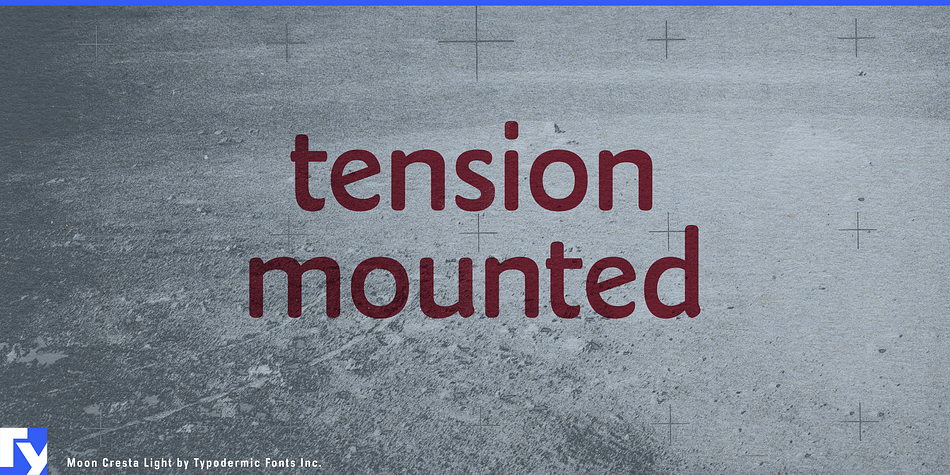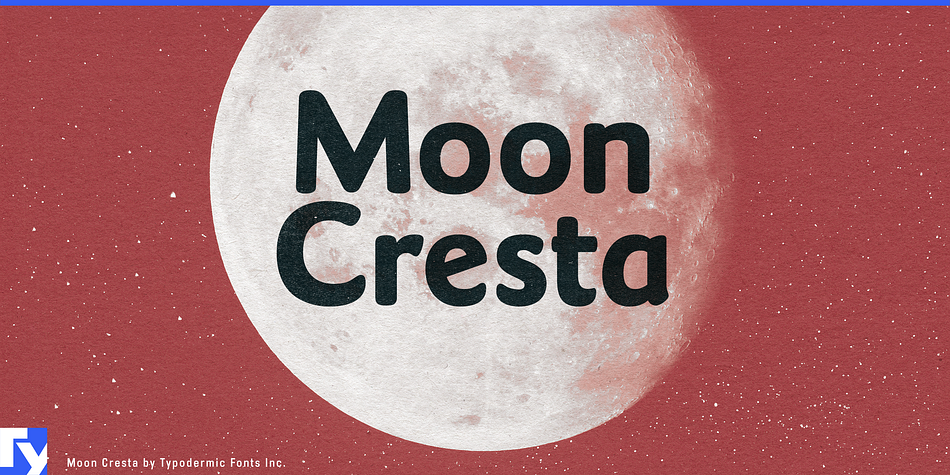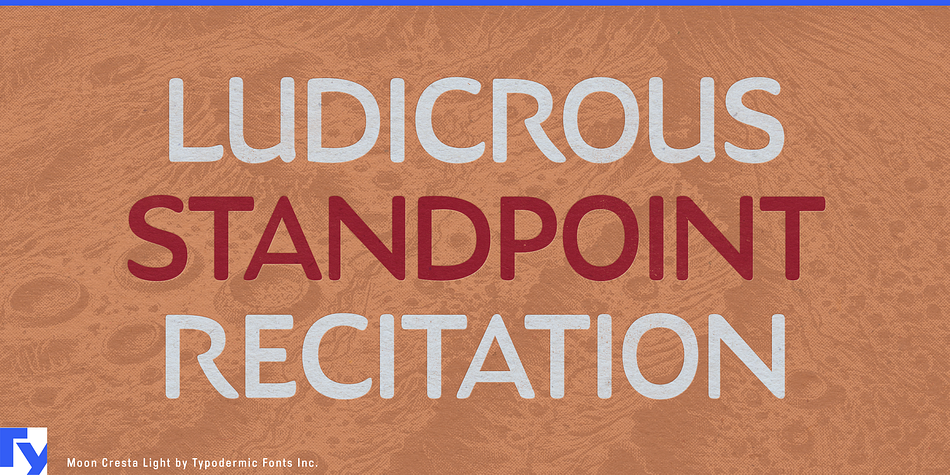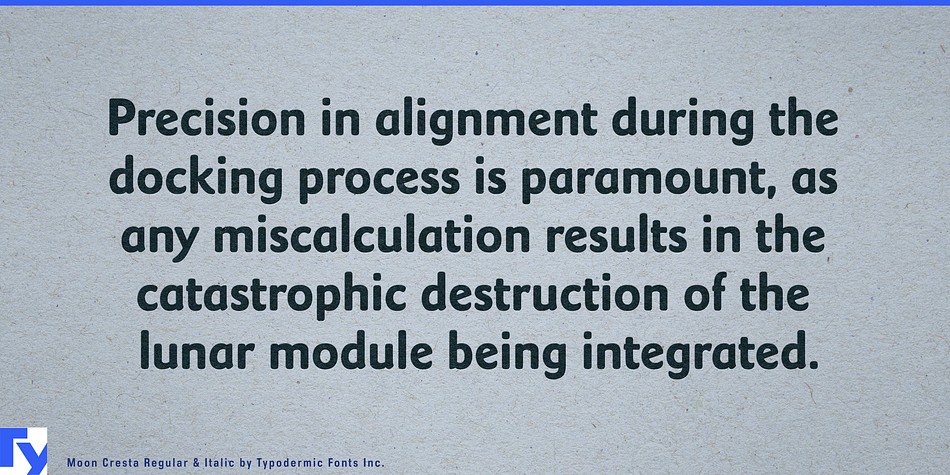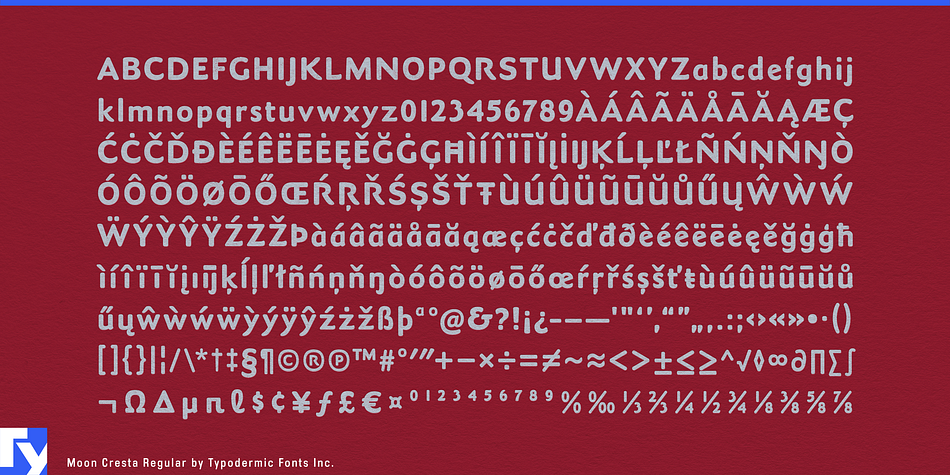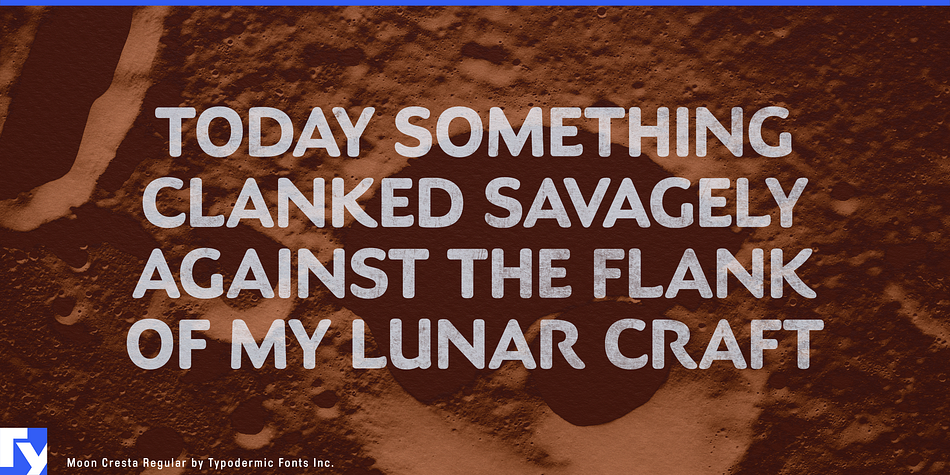
Moon Cresta is a sans serif font published by Typodermic Fonts Inc.
Moon Cresta is a contemporary web headliner which began with Goudy Sans proportions.